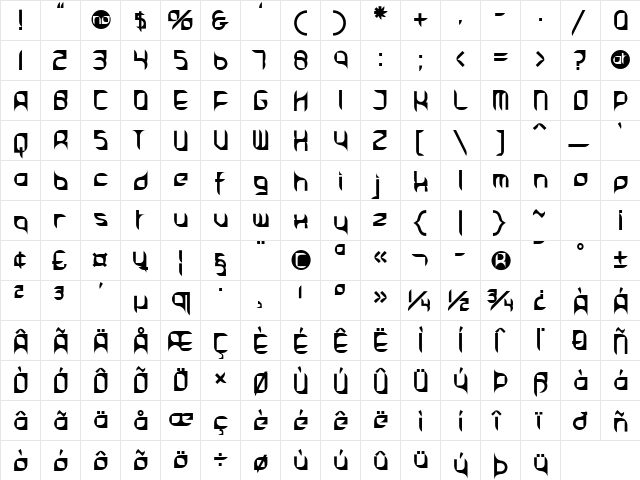
Principa Bold
| Foundry | Principa\ By Adam Roe / Lunchbox Studios, Los Angeles, CA |
Design Context for Principa Typeface
Principa is a composed and adaptable typeface that performs quietly and consistently across a wide range of design contexts. Its bold stroke weight gives it real presence on the page.